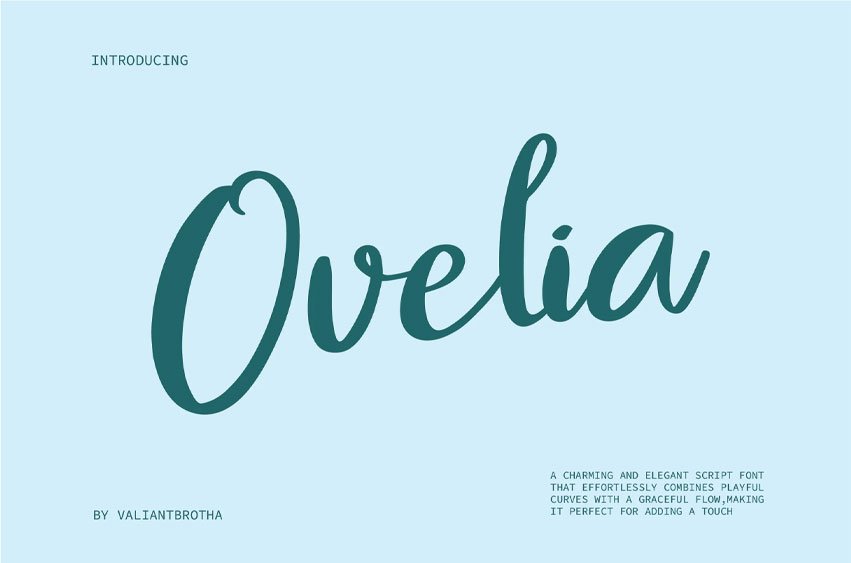
Ovelia Font is a charming and elegant script font that combines playful curves with a graceful flow. Its unique style adds a touch of sophistication while maintaining a friendly, approachable vibe.